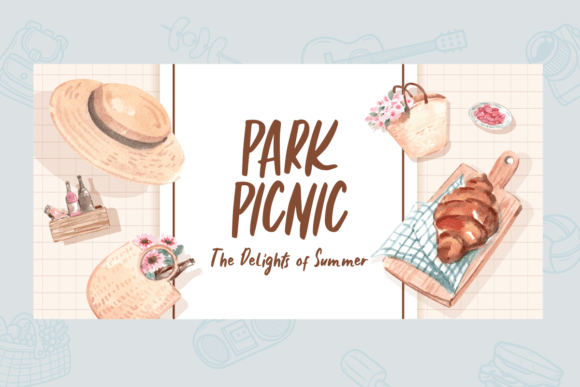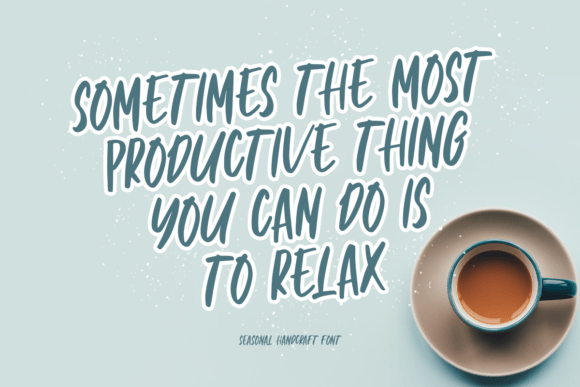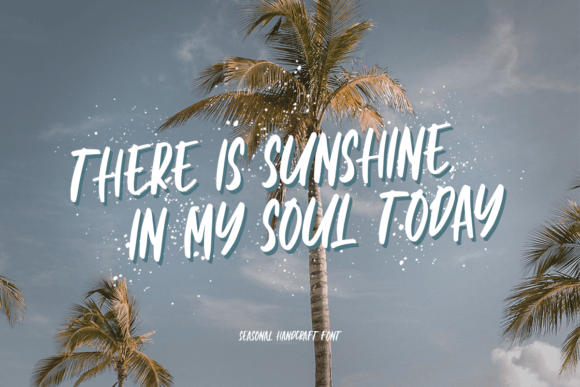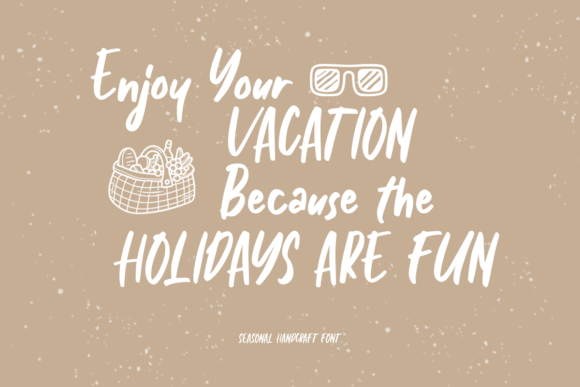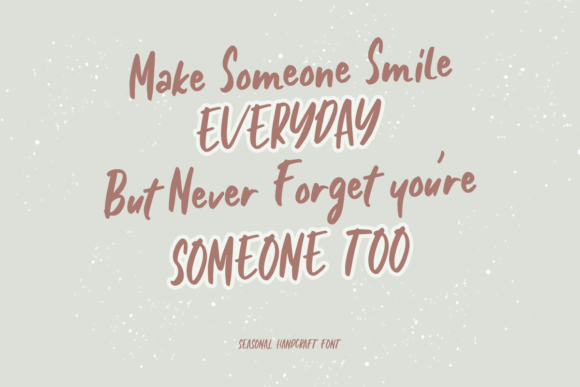
Hampers Font: The Perfect Choice for Holiday and Special Occasion Designs
Are you looking for a unique and festive typeface to elevate your holiday and special occasion designs? Look no further than Hampers Font! This charming font is specifically designed to capture the spirit of the holidays and special occasions with its handcrafted look and feel. In this article, we’ll explore the features and benefits of Hampers Font, and why it’s the perfect choice for designers and crafters.
A Handcrafted Look and Feel
Hampers Font boasts a distinctive handcrafted look and feel that sets it apart from other typefaces. Its whimsical and playful style adds a touch of warmth and charm to your designs, making them stand out and delight your audience. The font’s unique character is reminiscent of traditional holiday decorations, evoking feelings of nostalgia and festivity.
Perfect for Holiday and Special Occasion Designs
Whether you’re creating designs for Christmas, Easter, or any other holiday, Hampers Font is the perfect choice. Its versatility and charm make it suitable for a wide range of applications, from greeting cards and invitations to posters and other festive designs. With Hampers Font, you can add a touch of personality and whimsy to your designs, making them more engaging and memorable.
Key Features of Hampers Font
- Handcrafted look and feel: Hampers Font features a unique, handcrafted style that adds a touch of warmth and charm to your designs.
- Whimsical and playful: The font’s whimsical and playful style makes it perfect for holiday and special occasion designs.
- Versatile: Hampers Font is suitable for a wide range of applications, from greeting cards and invitations to posters and other festive designs.
Why Choose Hampers Font?
So, why choose Hampers Font for your holiday and special occasion designs? Here are just a few reasons:
- Unique and distinctive: Hampers Font is a one-of-a-kind typeface that will set your designs apart from the rest.
- Festive and fun: The font’s whimsical and playful style adds a touch of festivity and fun to your designs.
- Easy to pair with other fonts: Hampers Font pairs well with other fonts, making it easy to create visually appealing designs.
- High-quality: The font is high-quality and carefully crafted to ensure that it looks great in any design.
Tips for Using Hampers Font
Here are a few tips for using Hampers Font in your designs:
- Use it for headlines and titles: Hampers Font is perfect for headlines and titles, where its whimsical and playful style can really shine.
- Pair it with other fonts: Experiment with pairing Hampers Font with other fonts to create visually appealing designs.
- Use it for festive designs: Hampers Font is specifically designed for holiday and special occasion designs, so don’t be afraid to get creative and have fun with it!
In conclusion, Hampers Font is a unique and festive typeface that’s perfect for holiday and special occasion designs. Its handcrafted look and feel, whimsical and playful style, and versatility make it a great choice for designers and crafters. Whether you’re creating greeting cards, invitations, posters, or other festive designs, Hampers Font is sure to add a touch of warmth and charm to your designs. So why wait? Download Hampers Font today and start creating your own festive designs!